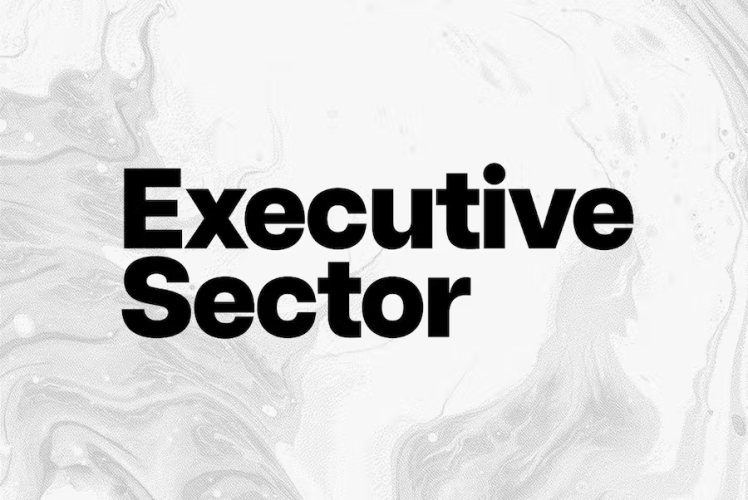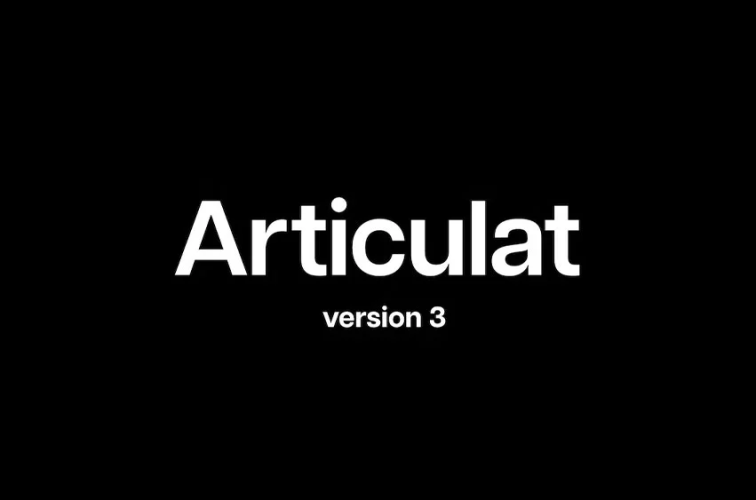
Articulat Font
Articulat Font is a geometric sans serif font which features 10 styles. Strong, sharp, and well-spoken, Articulat was built from scratch to be bold, clean, and straightforward.
Version 3 is a significant update with dozens of improvements. Every glyph has been worked over for a greatly improved rhythm and balance, plus general bug fixes and kerning touchups.
Articulat Font is a Sans Serif Fonts font that brings a professional and versatile look to your projects. Articulat Font is a geometric sans serif font which features 10 styles.